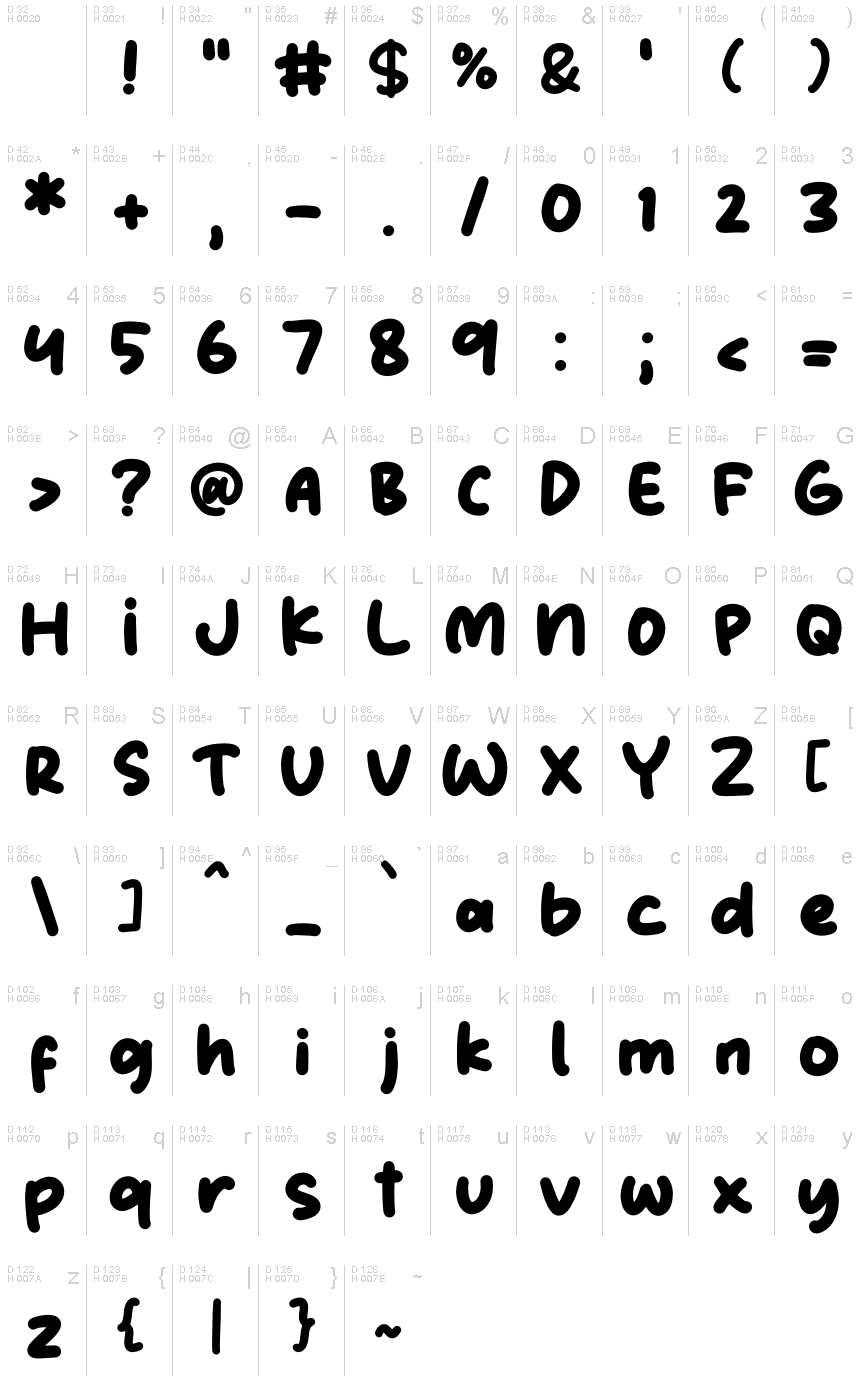
SALTED LEMONS
Salted Lemons is a font that exudes charm with its bold, handwritten style, crafted by the creative minds at Perspectype Studio - Letterena.com. Its strokes are confident and assertive, capturing attention with a casual flair reminiscent of an artisan's brush on a sunlit boardwalk. The playful irregularity of its characters adds a personal touch to any project, inviting warmth and familiarity.
This font finds its niche in designs that require an organic, approachable feel—perfect for boutique branding, whimsical invitations, or engaging social media graphics. Salted Lemons brings a handcrafted essence to the digital realm, bridging the gap between traditional artistry and contemporary digital design with ease and elegance.